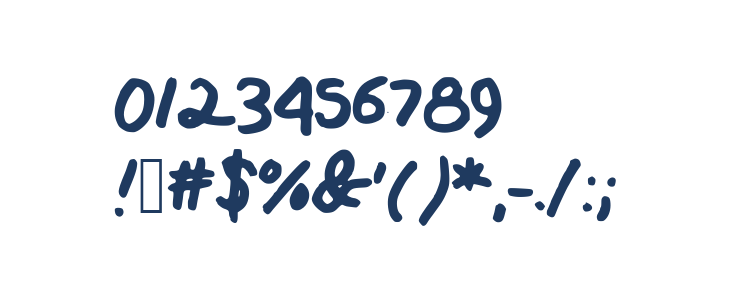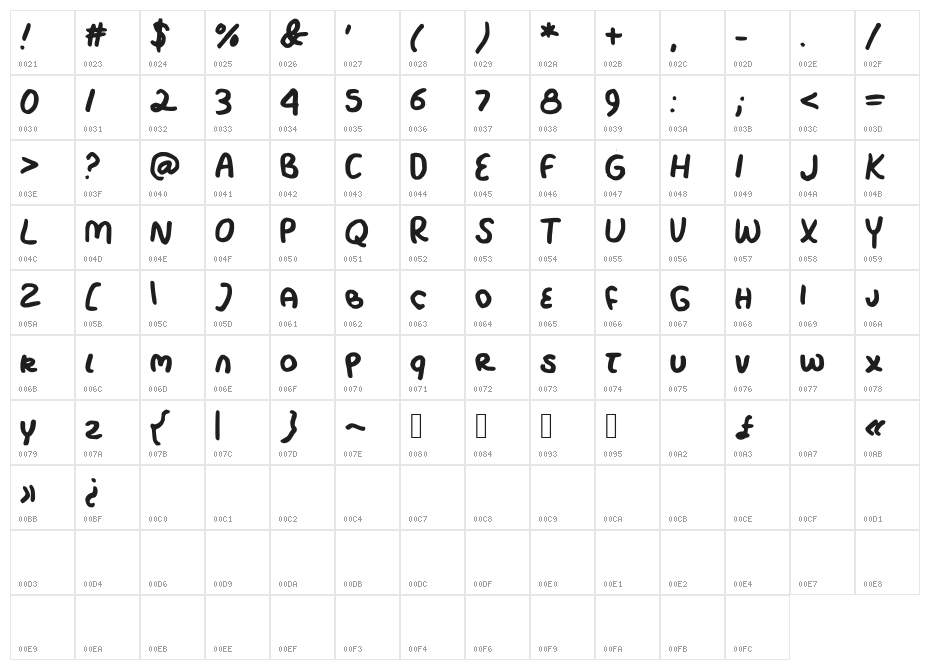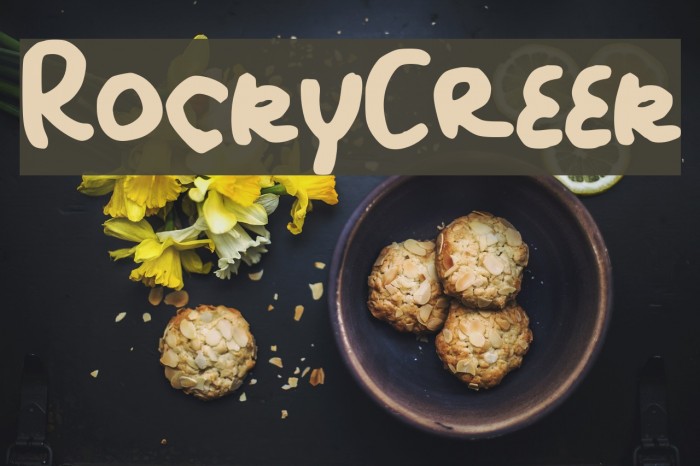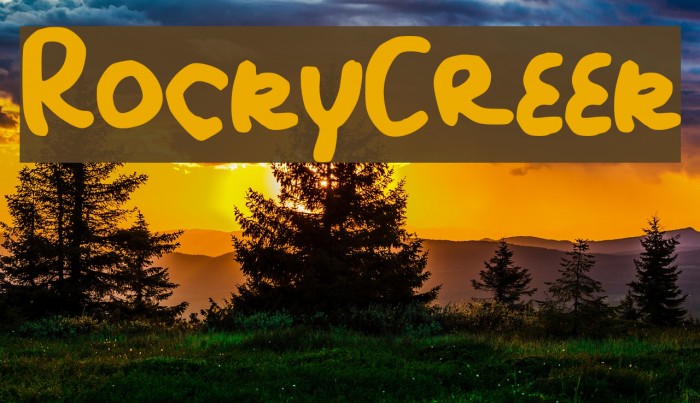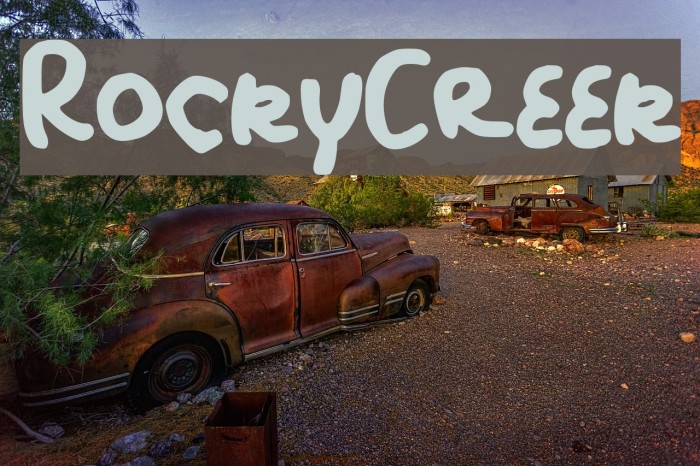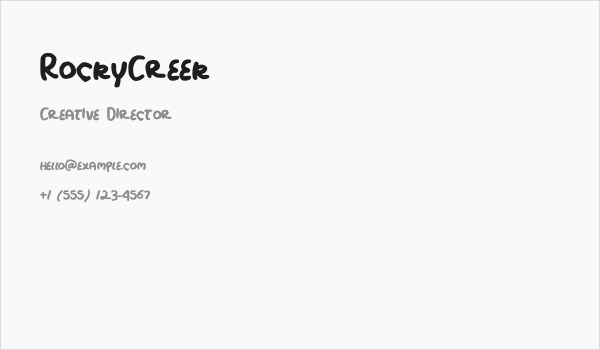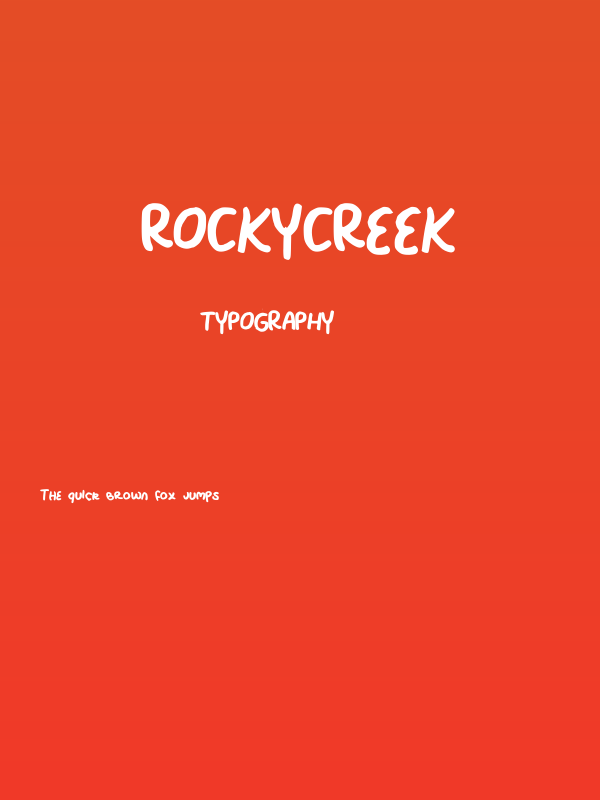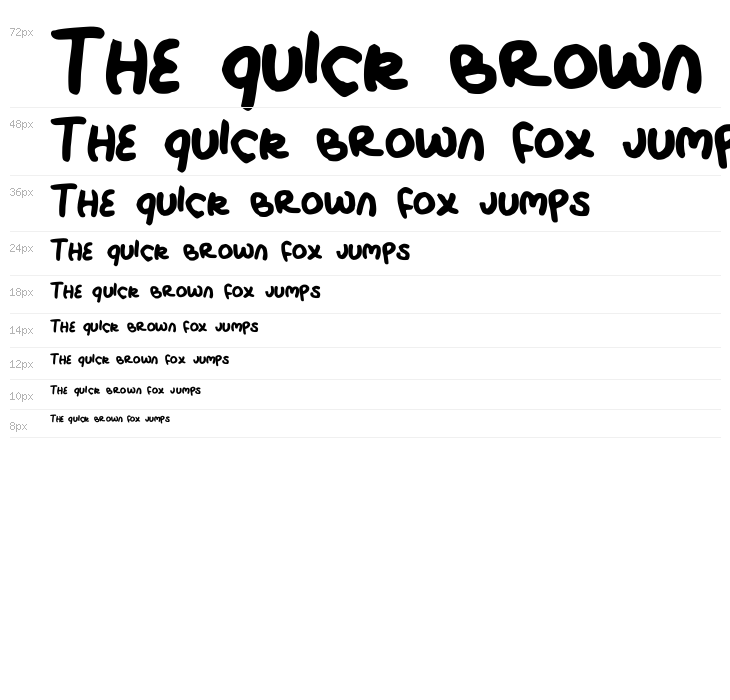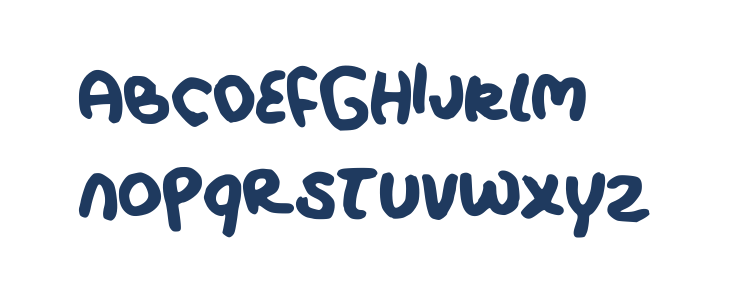
RockyCreek Font
RockyCreek Description
This font features a bold, handwritten style with rounded edges and a playful, casual appearance. The characters are thick and consistent, giving a sense of uniformity while maintaining a friendly and approachable vibe. The uppercase and lowercase letters are well-balanced, with a slight slant that adds to the informal feel. Numbers and special characters are designed to match the overall aesthetic, ensuring cohesion across all elements. The font's boldness makes it highly legible, even at smaller sizes, and its unique style is perfect for projects that require a personal touch.
Overall StyleCasual
Proposed ProjectsIdeal for greeting cards, children's books, playful branding, and social media graphics.